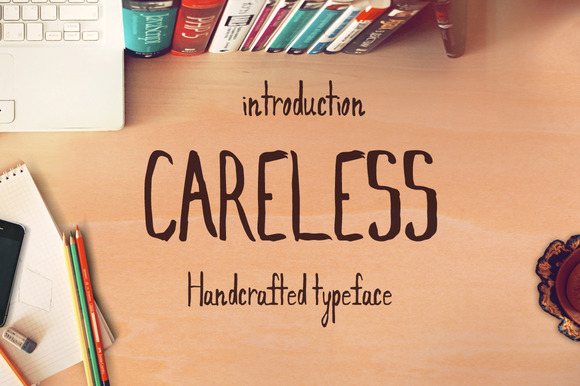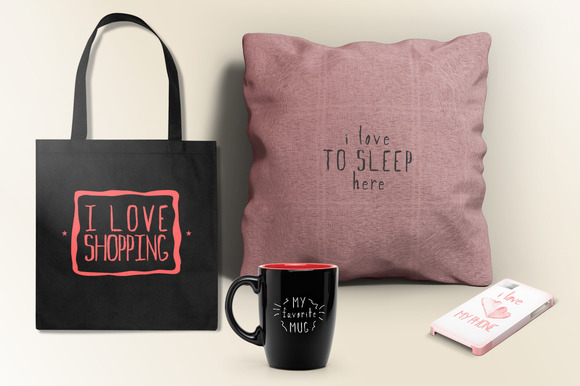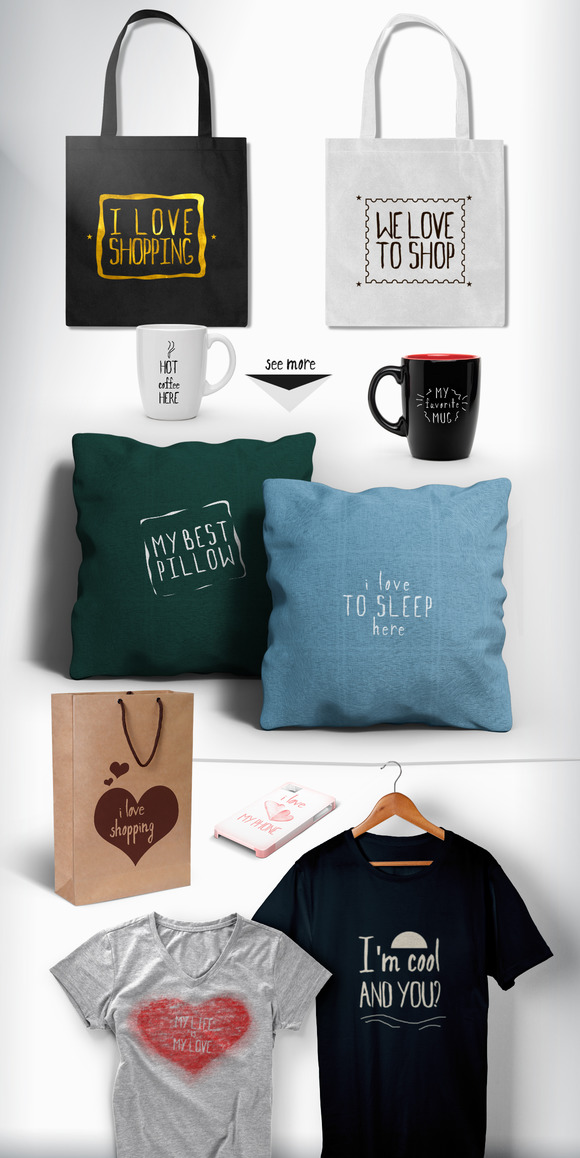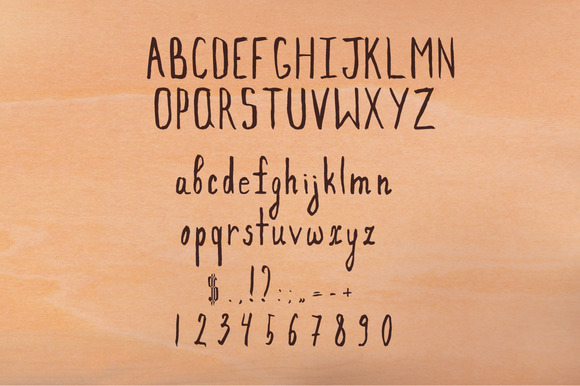
Careless Brush Font
Introducing Careless! A fun and cheerful hand-drawn font, perfect for a professional or craft project that needs some character and personality. Can be used in Photoshop, Illustrator, InDesign, Word, Etc.
| Classification: | Brush Fonts, Script Fonts |